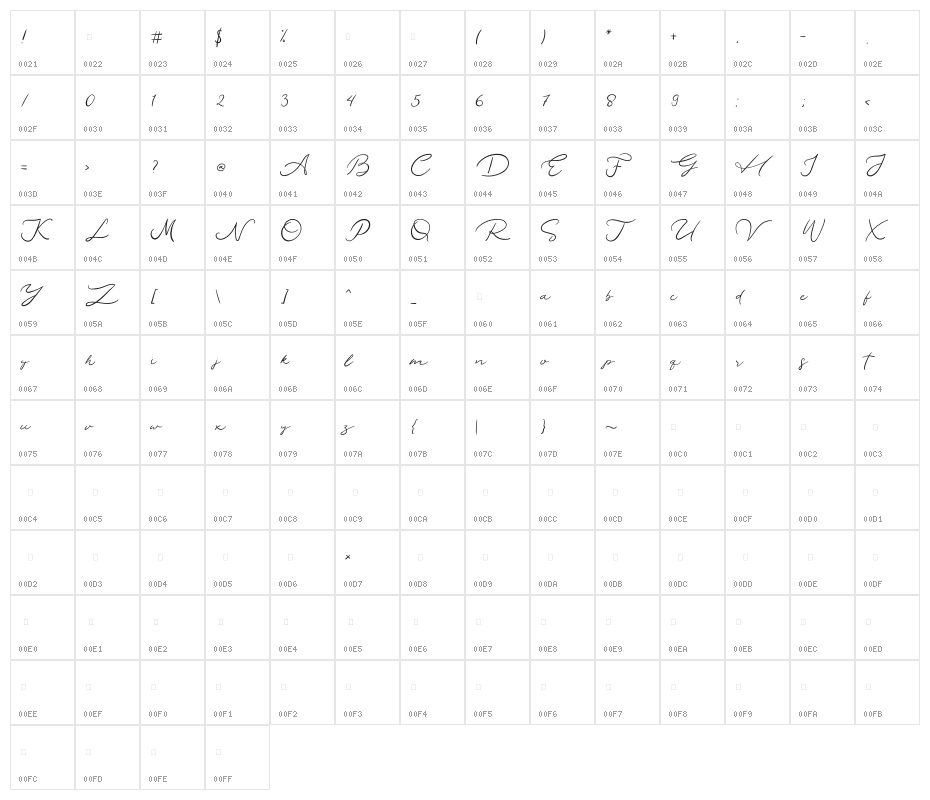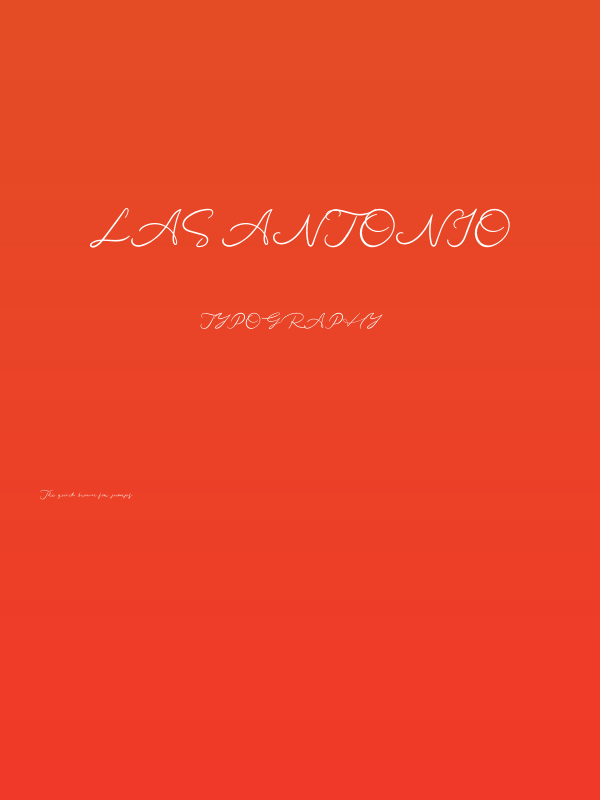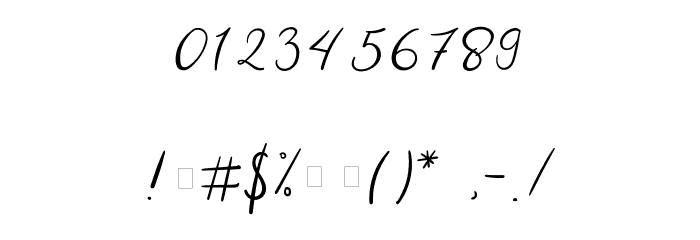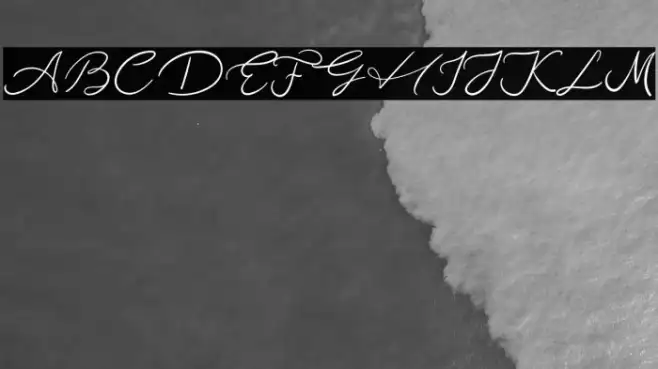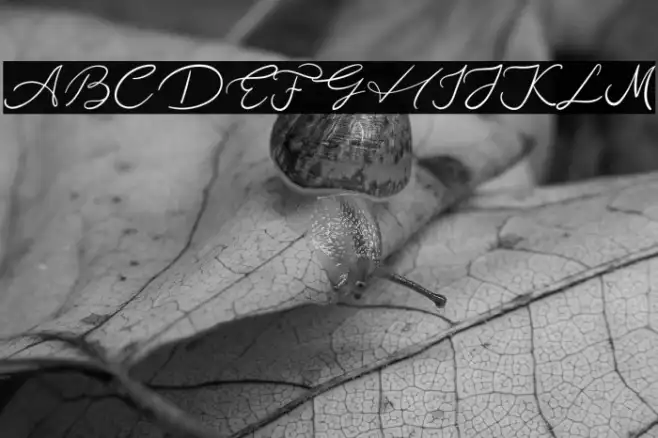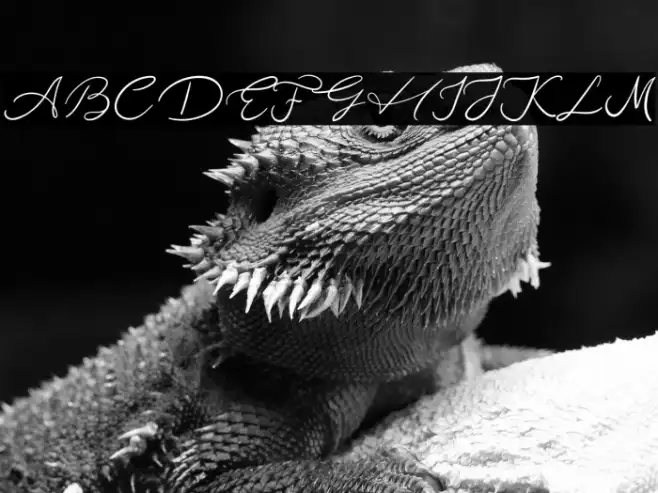
Las Antonio Font
This elegant script font features flowing, cursive letterforms that convey a sense of sophistication and grace. The uppercase letters are characterized by sweeping curves and delicate loops, while the lowercase letters maintain a consistent fluidity with subtle variations in stroke width. The numerals are designed to complement the overall style, with a graceful yet readable appearance. Special characters are thoughtfully integrated, maintaining the font's cohesive aesthetic. This font is ideal for projects that require a touch of elegance and refinement.
| Proposed Projects | Ideal for wedding invitations, elegant branding, personal stationery, and upscale packaging. |